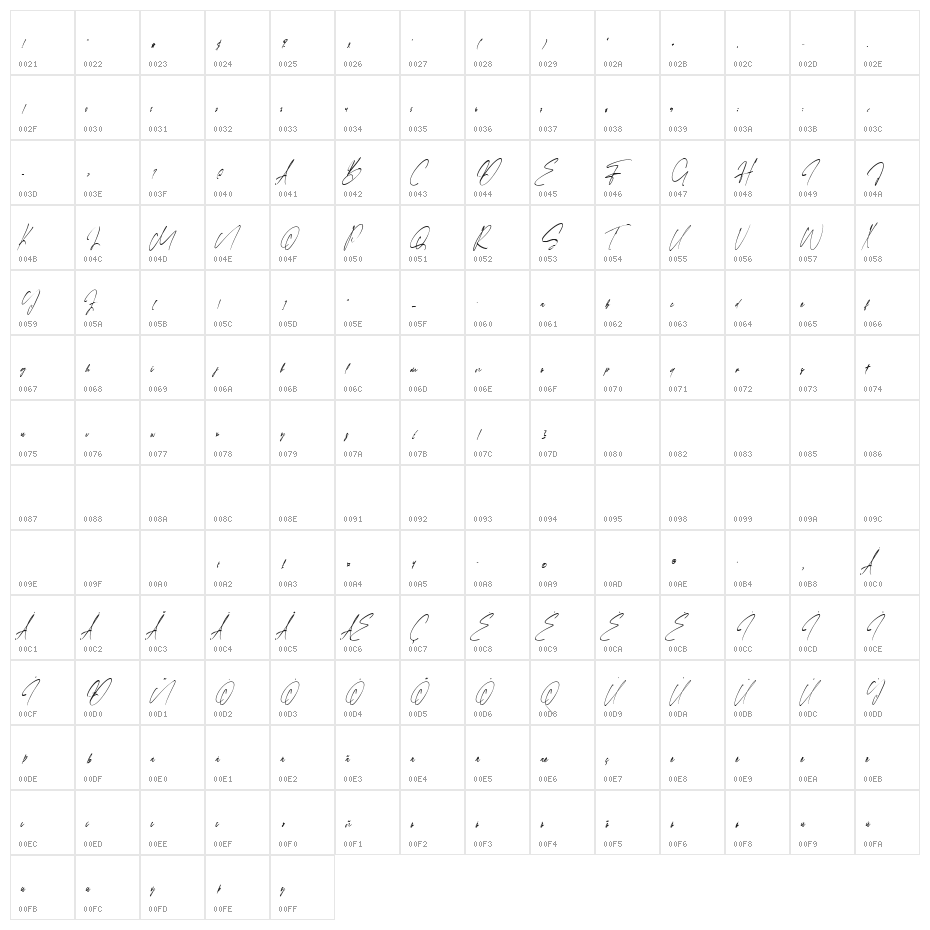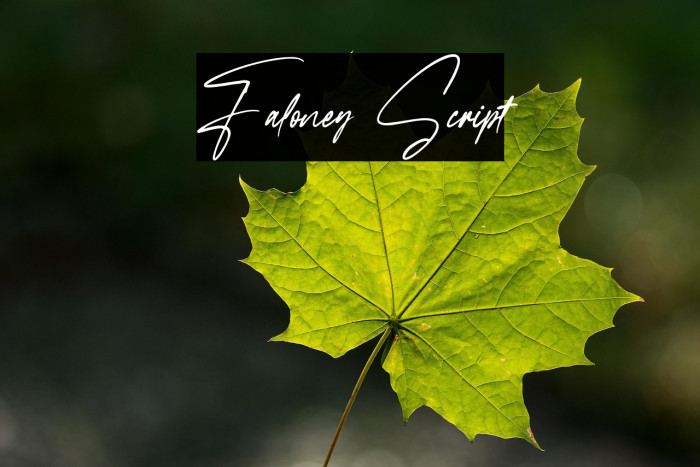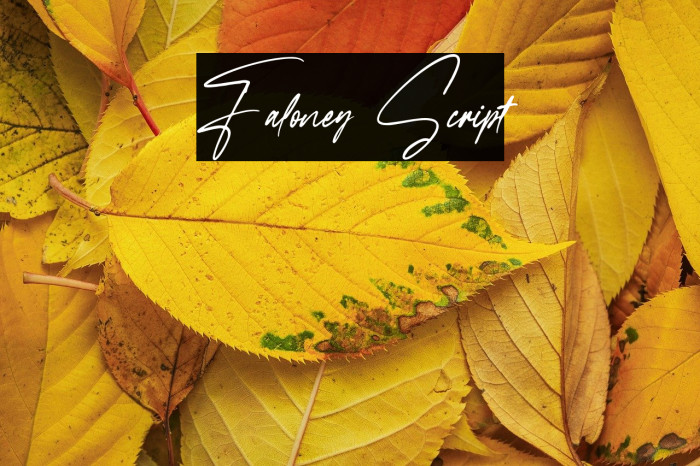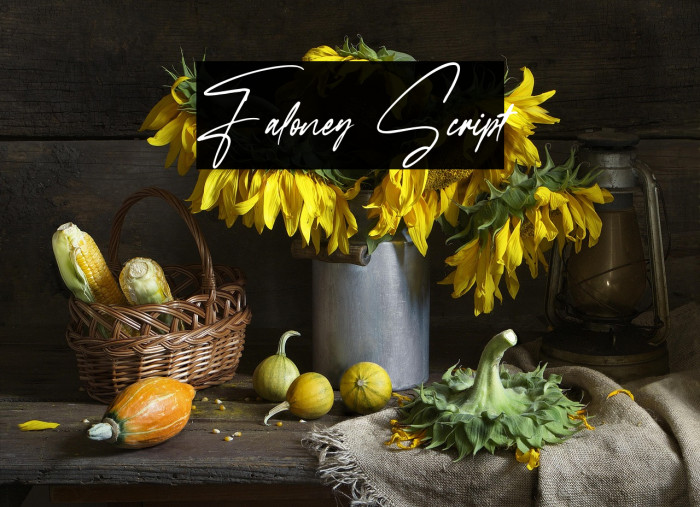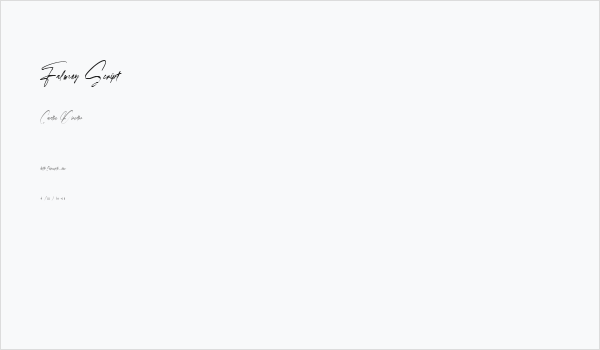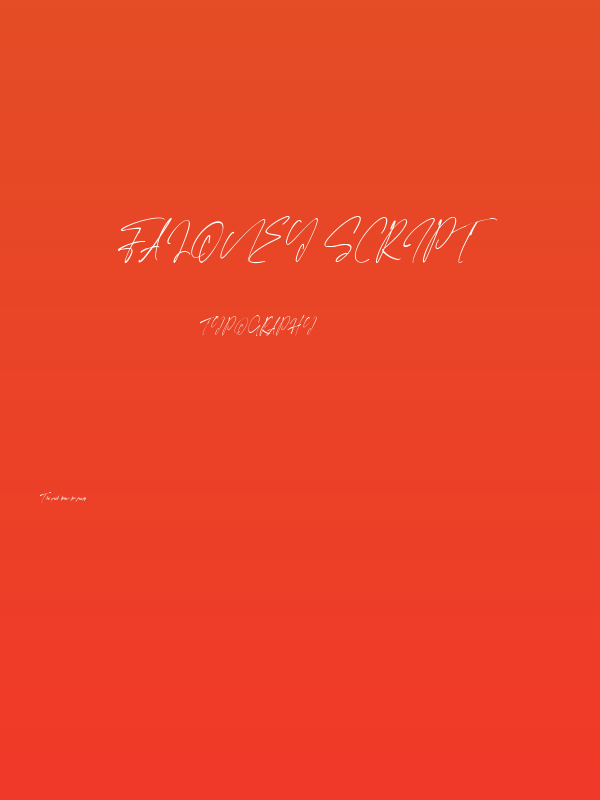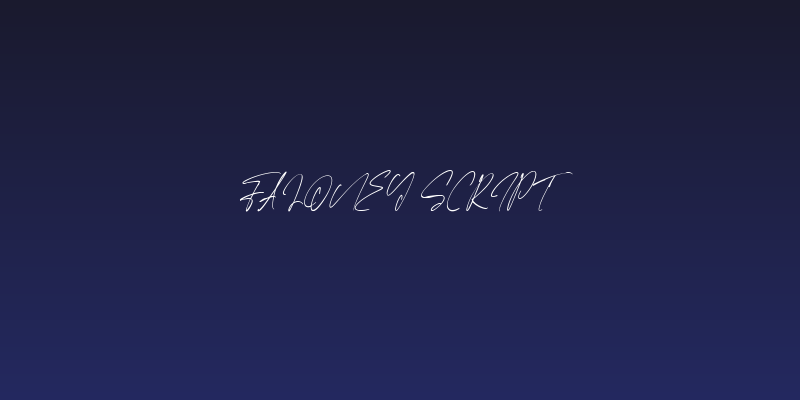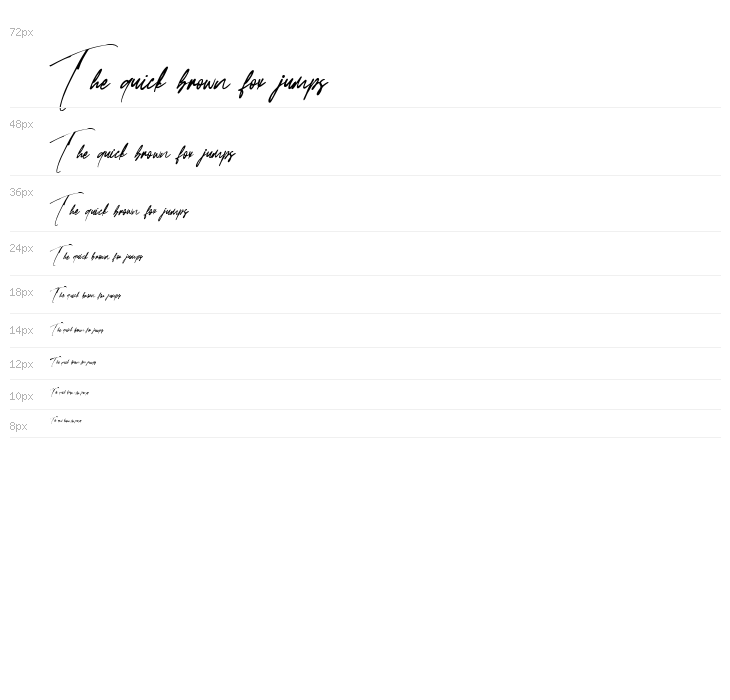
Faloney Script Font
Faloney Script Description
A flowing, elegant script font with a handwritten style, featuring smooth, connected strokes and a casual yet sophisticated appearance.
| Use Case | Logos, Invitations, Decorative text |
| Proposed Projects | Invitations, greeting cards, branding, and decorative text. |